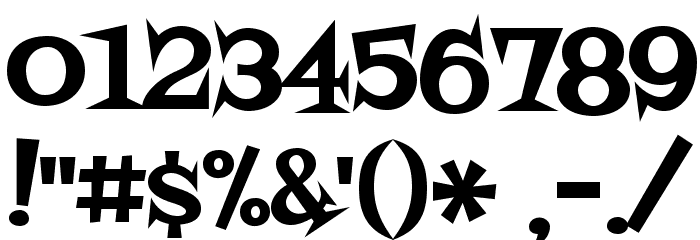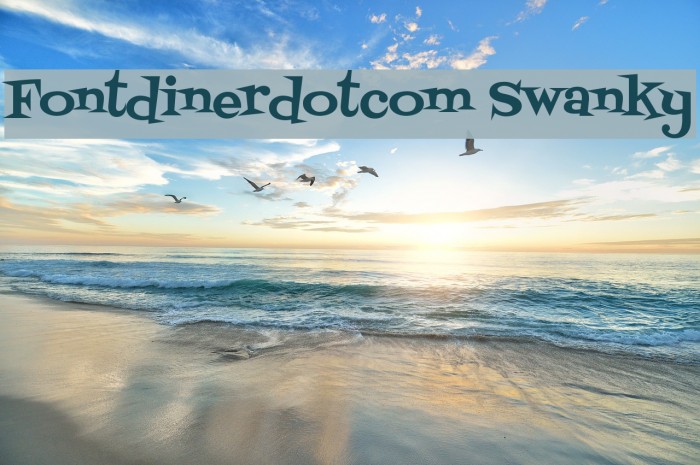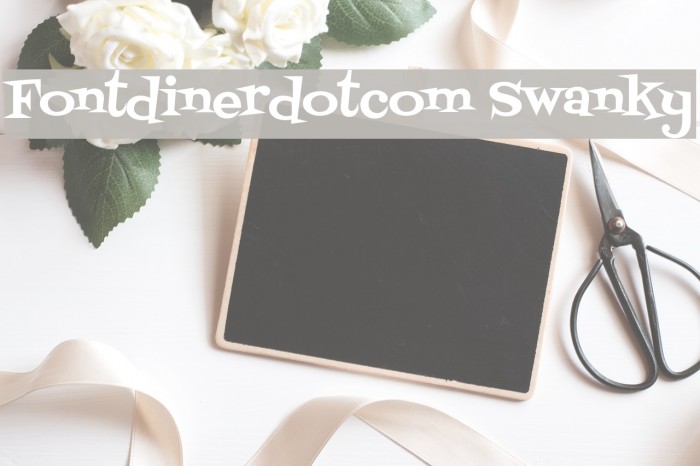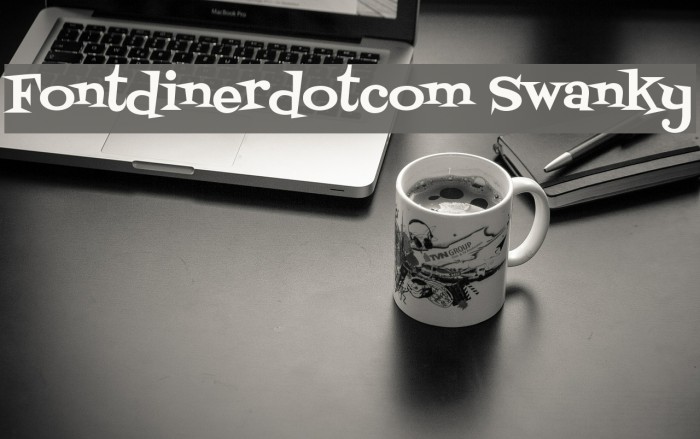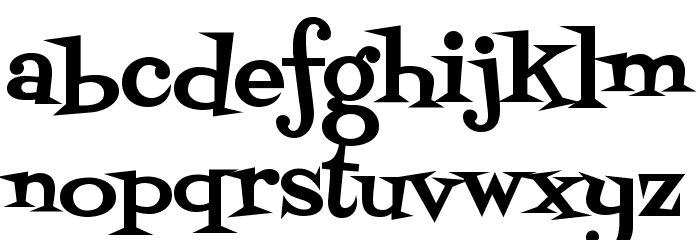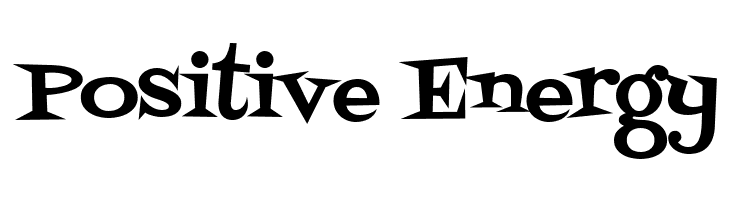
Fontdinerdotcom Swanky Font
Fontdinerdotcom Swanky Description
This font exudes a playful and whimsical character, with its unique and quirky letterforms that feature exaggerated curves and angles. The uppercase letters are bold and dynamic, while the lowercase letters maintain a consistent style with a touch of flair. The numbers and special characters follow the same lively design, making the font suitable for creative and fun projects. Its distinctive style is reminiscent of retro and vintage aesthetics, yet it maintains a modern appeal. The font's overall appearance is both eye-catching and memorable, making it ideal for projects that require a touch of personality and charm.
A playful and whimsical font with quirky, exaggerated letterforms from Kids fonts.
- Proposed Projects: Perfect for children's books, playful branding, party invitations, and retro-themed designs.
- Overall Style: Vintage